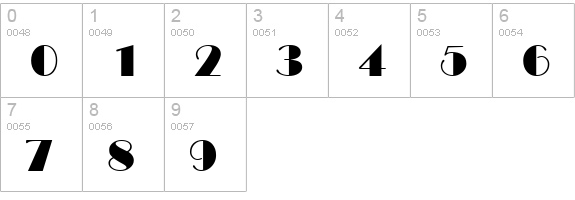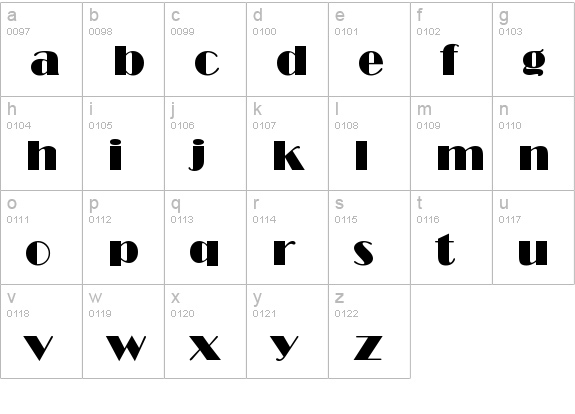
Broad Avenue Font Details
Broad Avenue font is a stylish and modern typeface that exudes sophistication and elegance. With its clean lines and sleek design, this font is perfect for a wide range of projects, from branding to editorial design. The versatility of Broad Avenue font makes it a great choice for both digital and print applications. This font is available for free download at FontsMarket.com, allowing designers and creatives to easily access this high-quality typeface for their projects. Whether you're looking to add a touch of class to your website or create eye-catching marketing materials, Broad Avenue font is sure to make a statement. With its bold yet refined appearance, Broad Avenue font is a standout choice for anyone looking to elevate their design work. Download this font today and see the difference it can make in your projects.